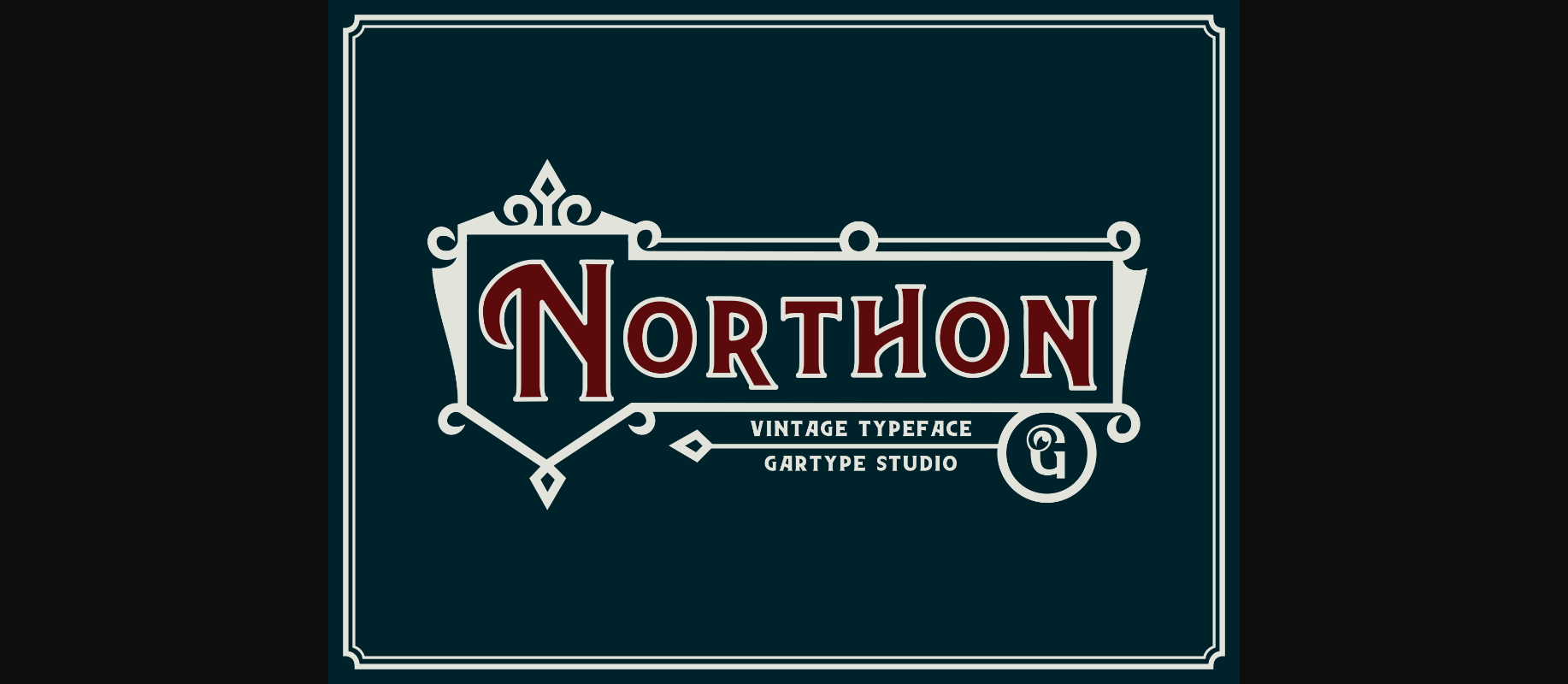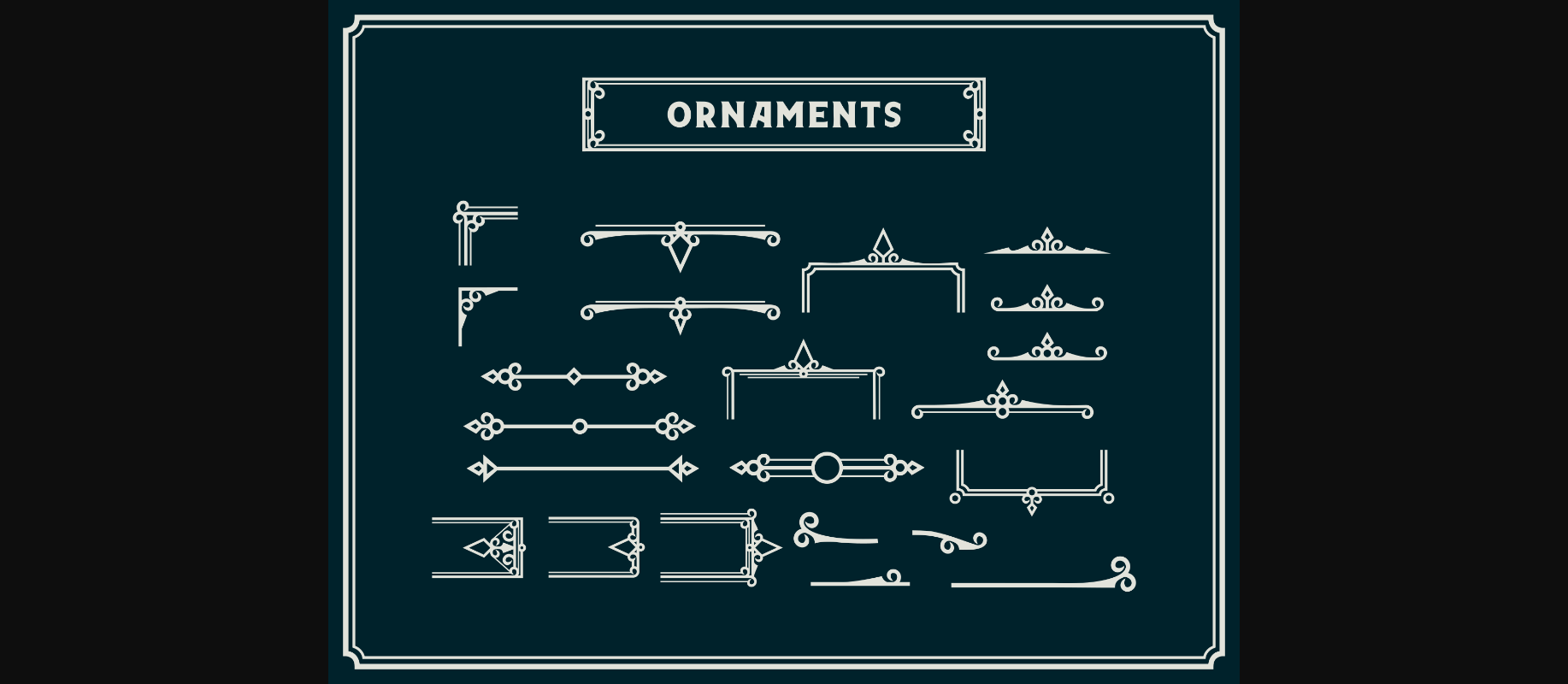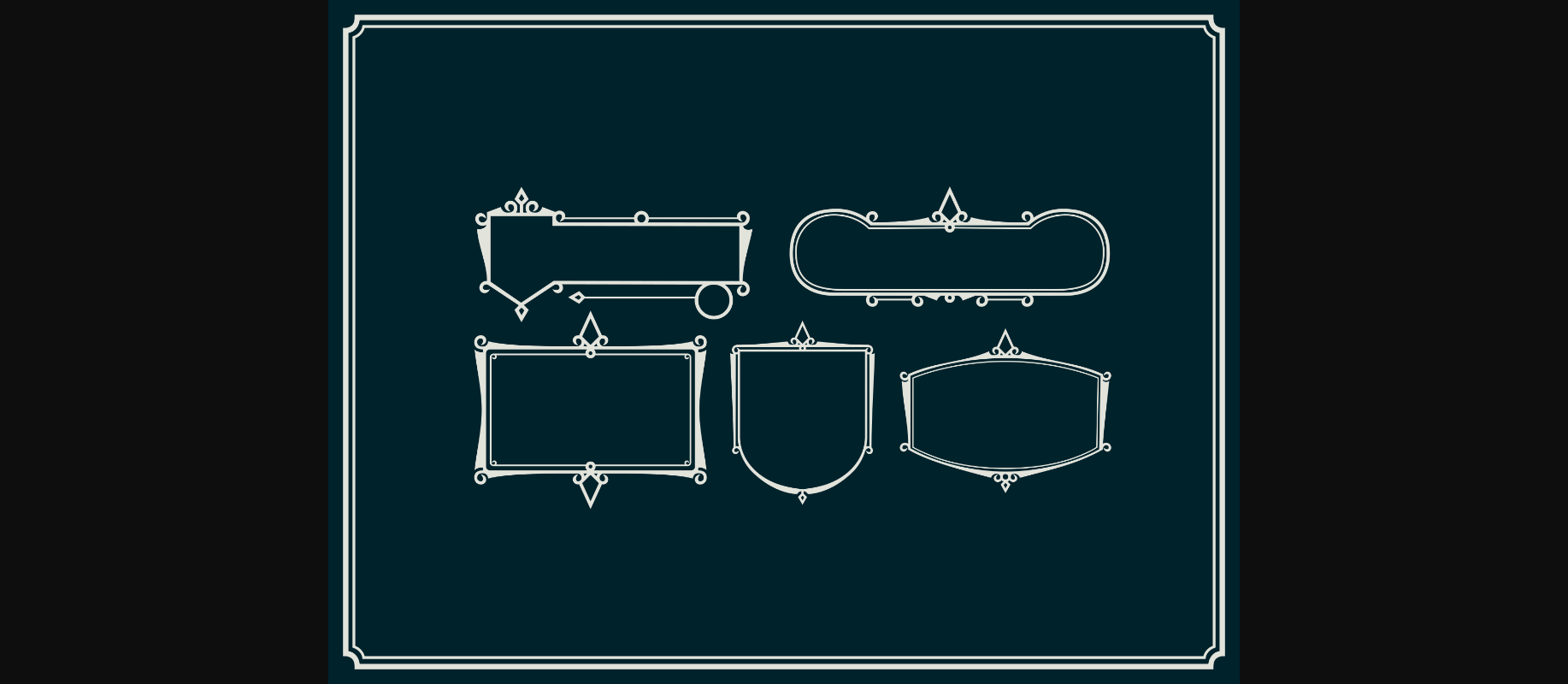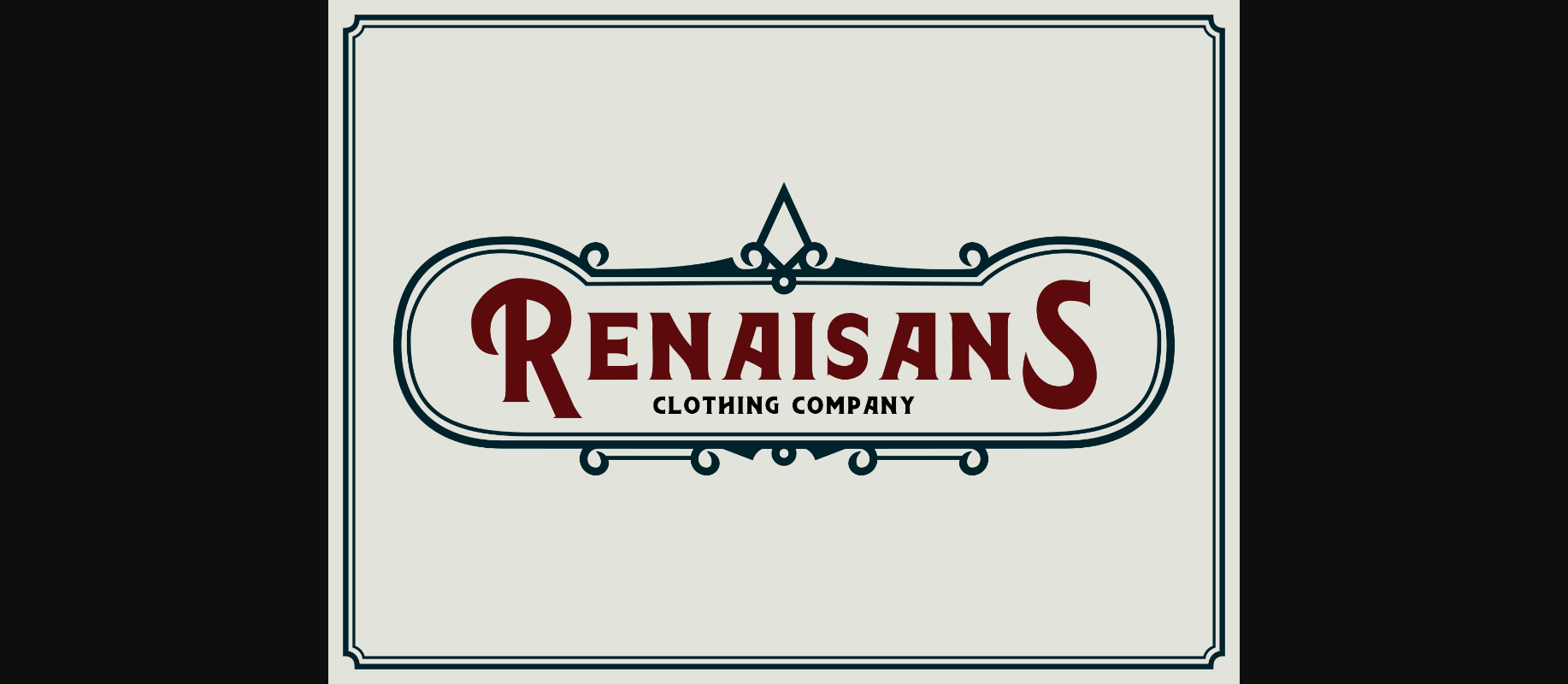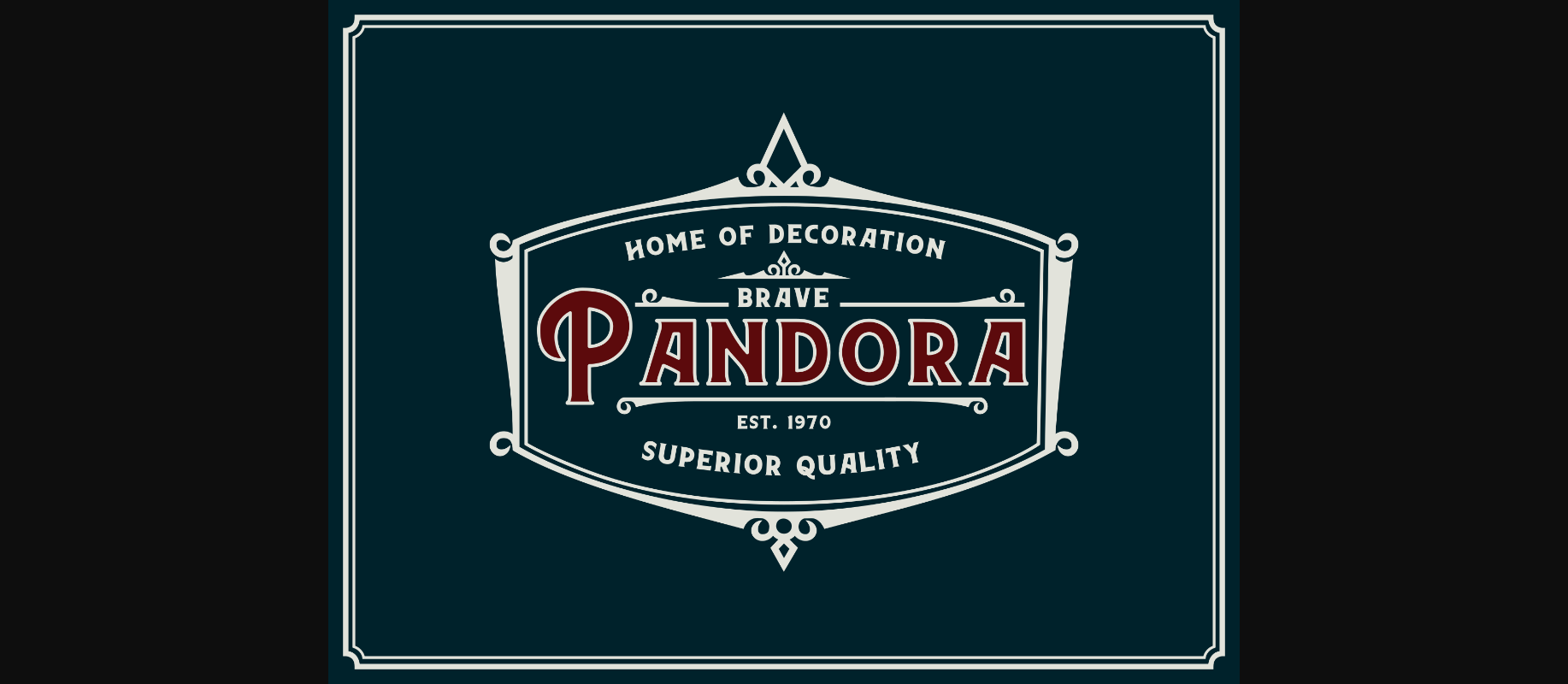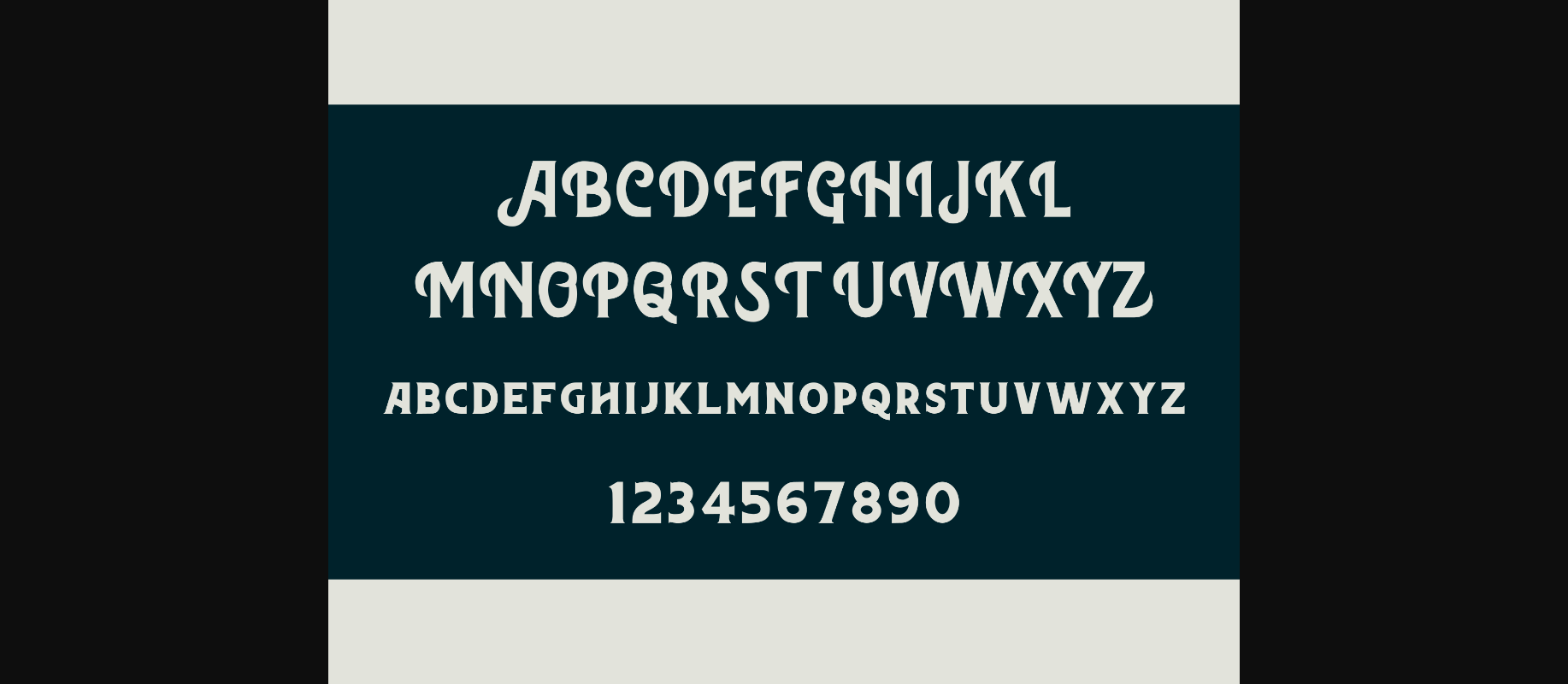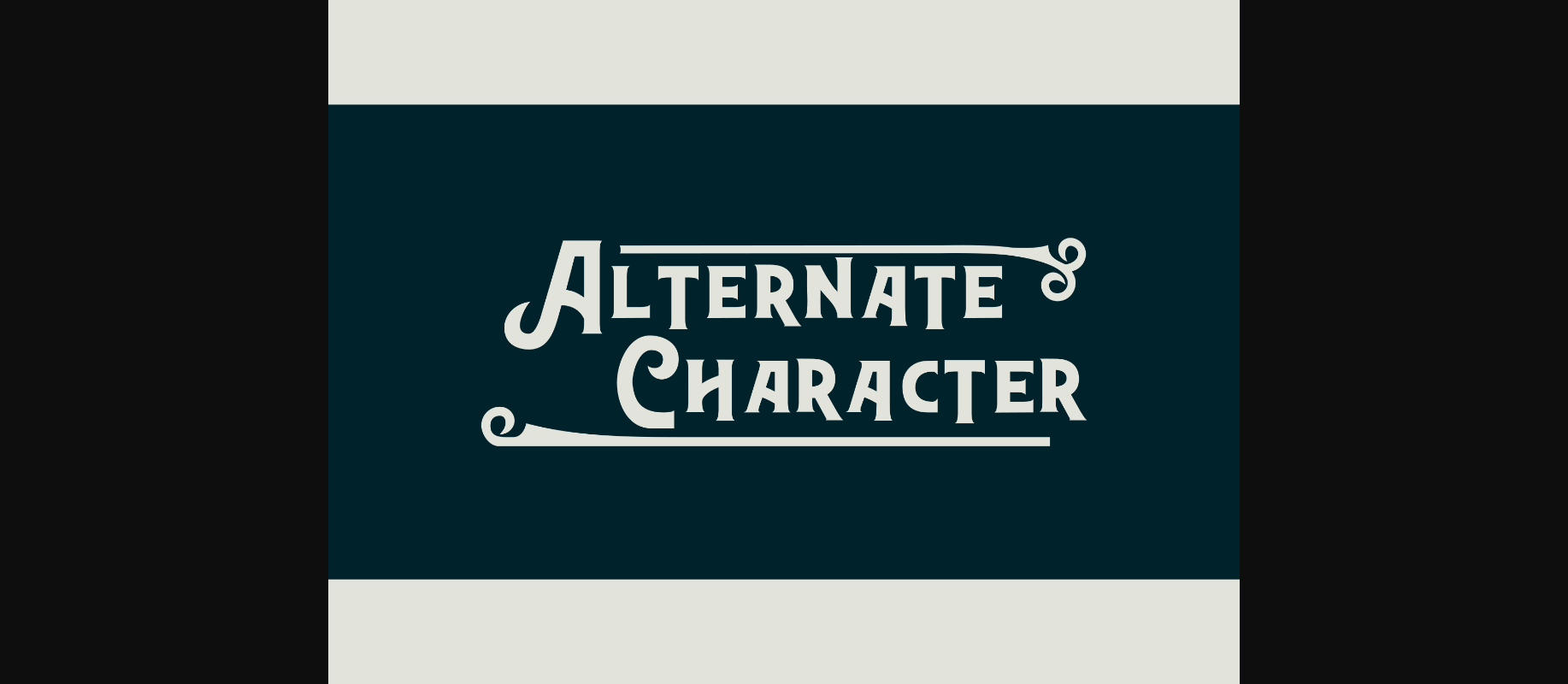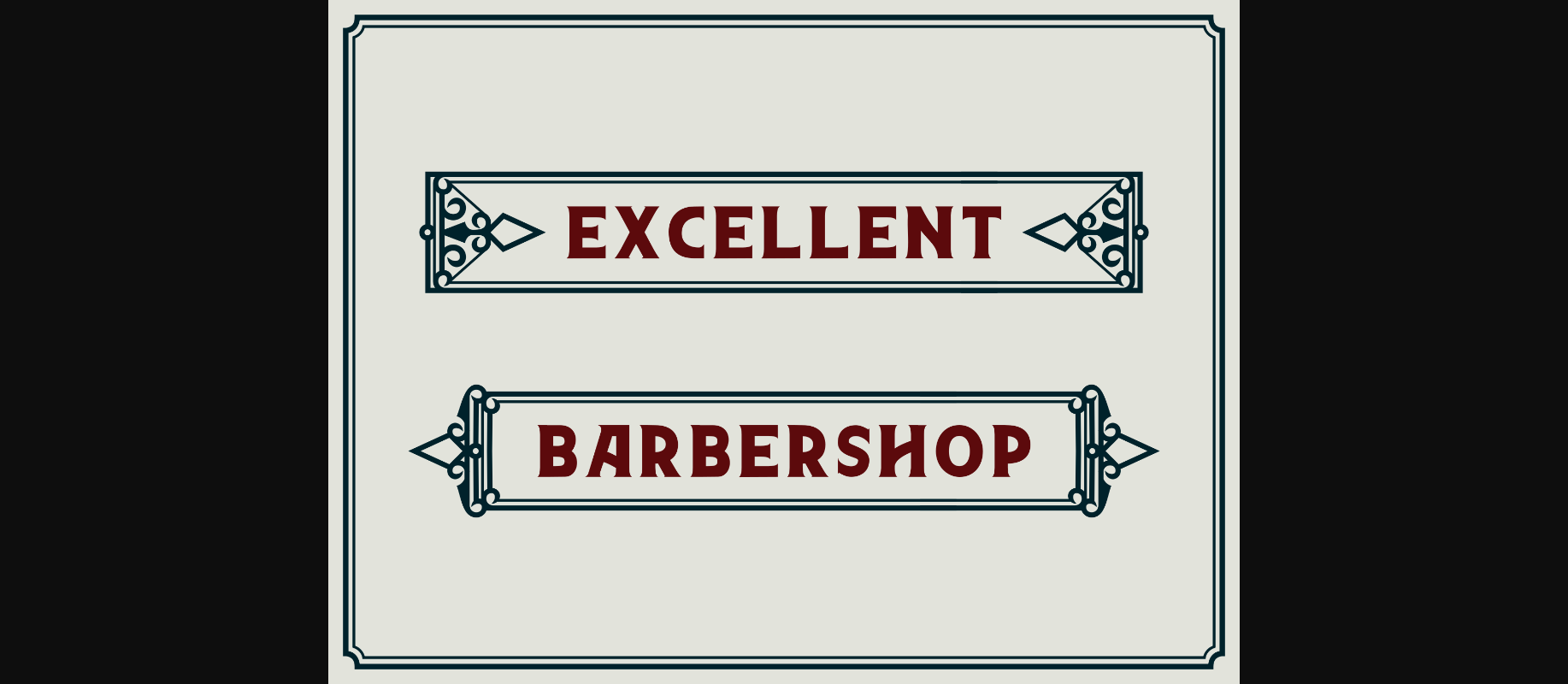
Northon Font
About Northon Font
Northon is a stunning, decorative vintage typeface that will add a cool hip charm to your designs. This is a great way to give your designs a bold appeal.